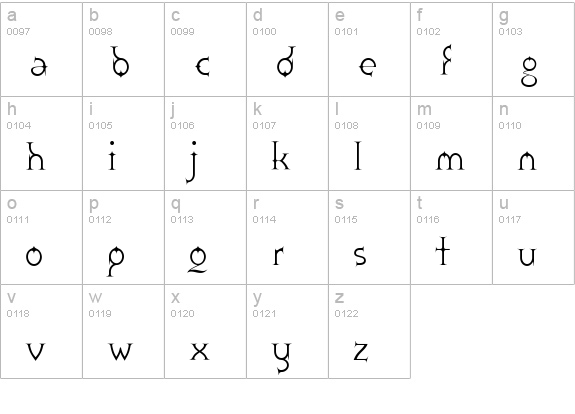
Zoroaster-Light Font Details
Zoroaster-Light is a refined, elegant variant in the Zoroaster typeface family \xE2\x80\x94 well suited to elegant body text, refined sub-headings, and luxury branding.
Zoroaster-Light font is a stunning display typeface that exudes elegance and sophistication. With its sleek lines and graceful curves, this font is perfect for adding a touch of class to any design project. The Zoroaster-Light font is not only visually appealing but also versatile, making it suitable for a wide range of applications. What sets Zoroaster-Light font apart is that it is available for free download at FontsMarket.com. This means that you can access this beautiful font without any cost, making it a valuable addition to your font collection. Whether you are a designer looking for a stylish typeface or someone who appreciates quality typography, Zoroaster-Light font is sure to impress. Download it today and elevate your designs with this elegant and free font.